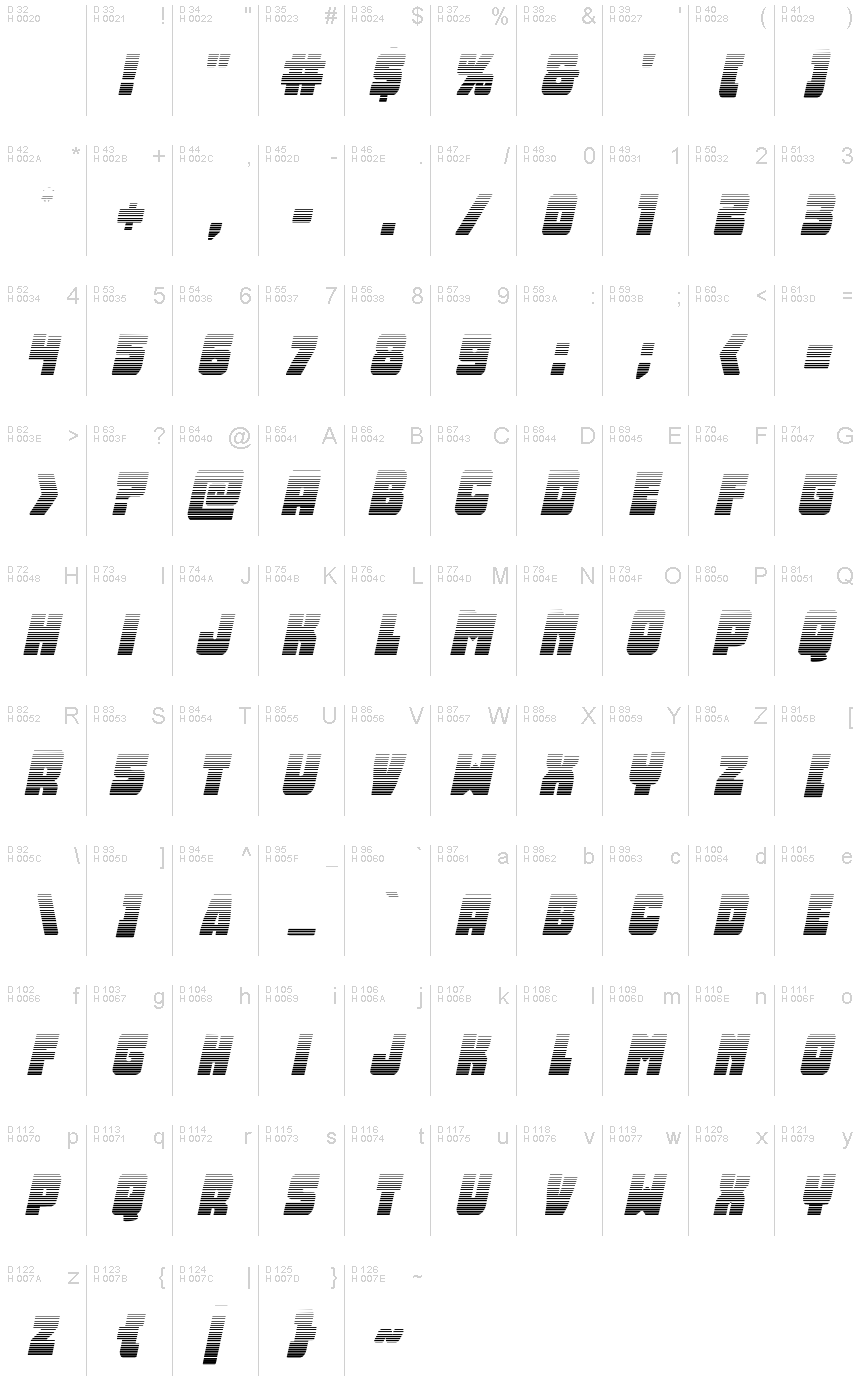
Opus Mundi Gradient Italic
Opus Mundi Gradient Italic is a captivating display font that exudes a sense of dynamism and movement. Designed by Daniel Zadorozny, this bold, condensed typeface features striking gradients that add depth and visual intrigue to any design.
The fluid, italicized letterforms convey a sense of energy and forward momentum, making it an ideal choice for headlines, logos, and other attention-grabbing applications. Its unique aesthetic lends itself well to a diverse range of contexts, from modern branding to eye-catching editorial layouts.
Opus Mundi Gradient Italic's versatility and visual impact make it a standout choice for designers seeking to elevate their work with a truly distinctive typographic element.
The fluid, italicized letterforms convey a sense of energy and forward momentum, making it an ideal choice for headlines, logos, and other attention-grabbing applications. Its unique aesthetic lends itself well to a diverse range of contexts, from modern branding to eye-catching editorial layouts.
Opus Mundi Gradient Italic's versatility and visual impact make it a standout choice for designers seeking to elevate their work with a truly distinctive typographic element.